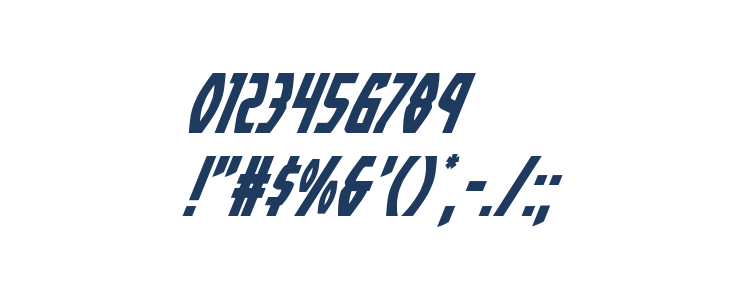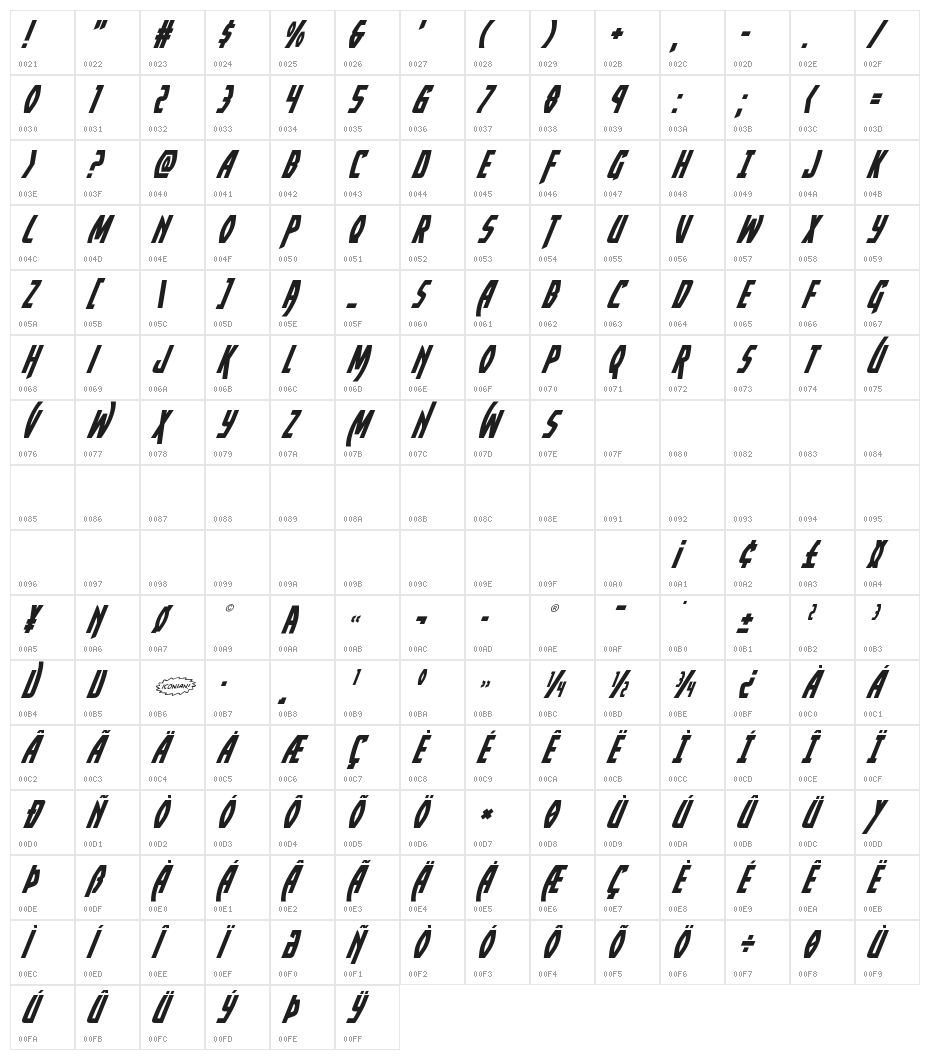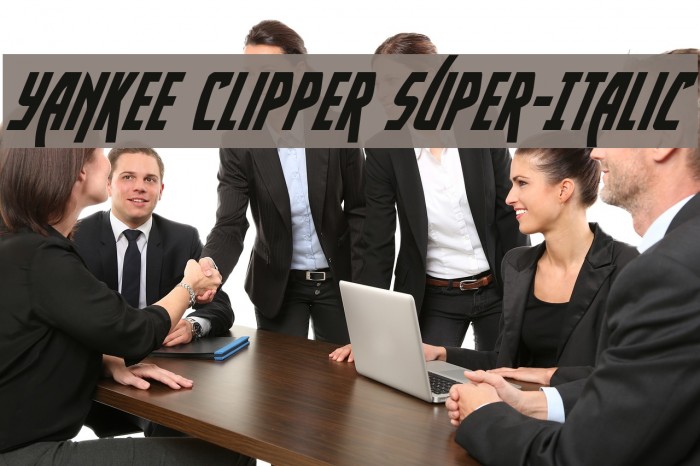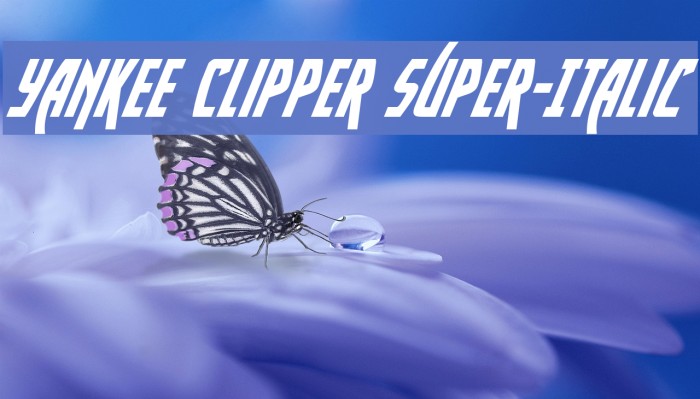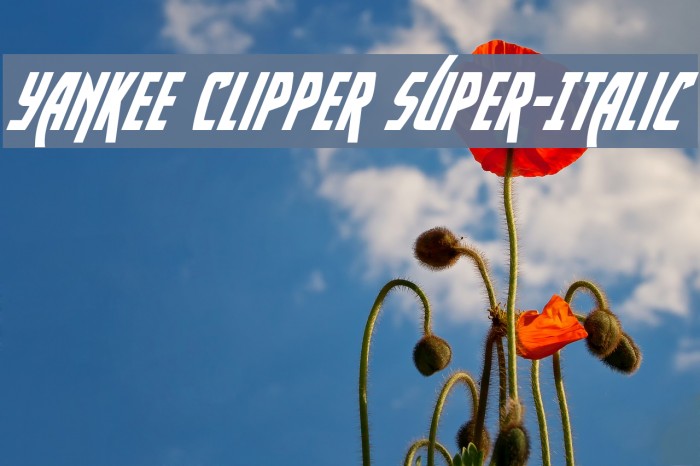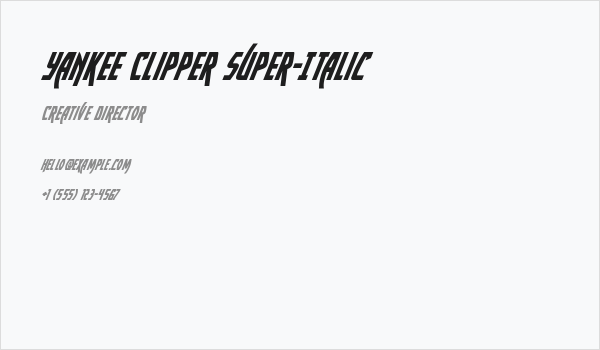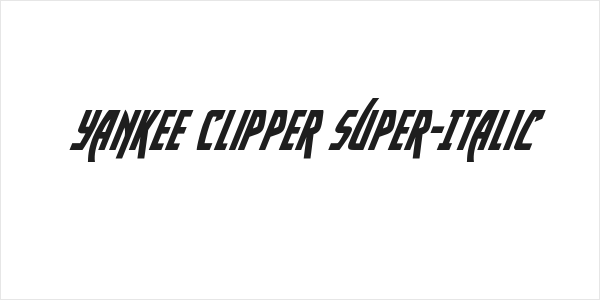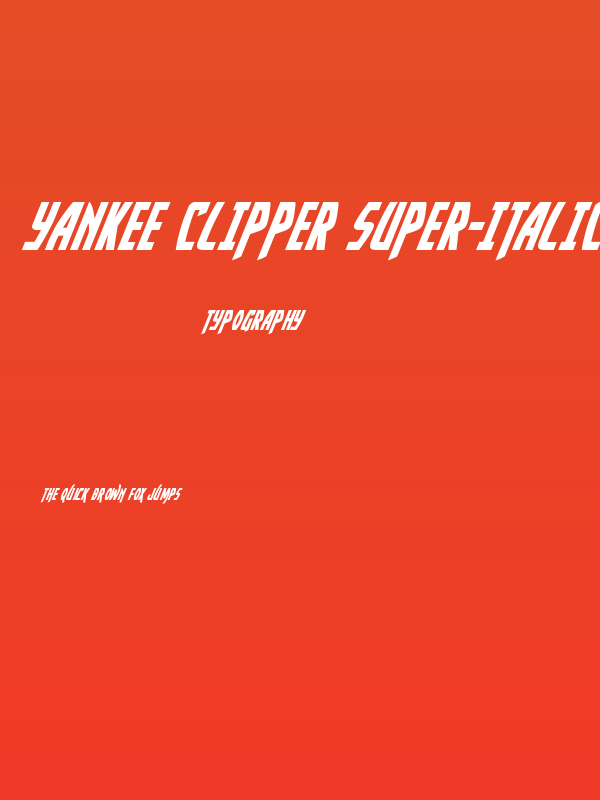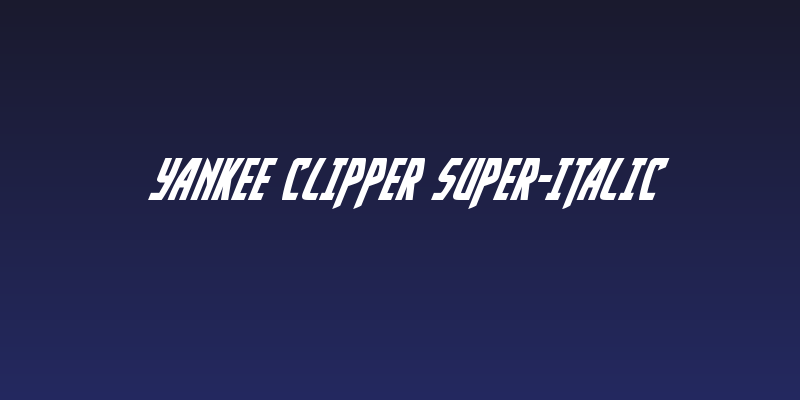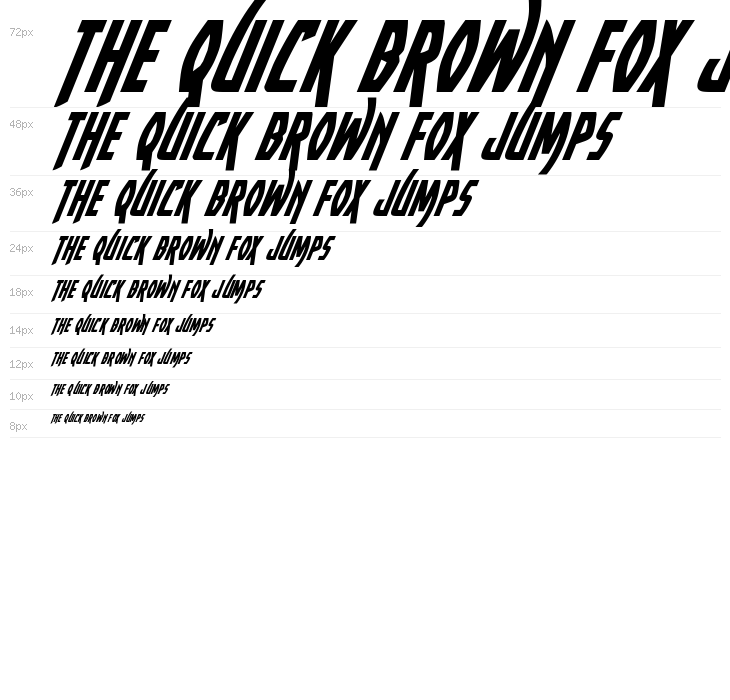
Yankee Clipper Super-Italic Font
Yankee Clipper Super-Italic Description
This font features a bold, italicized style with sharp, angular edges and a dynamic forward slant, giving it a sense of motion and energy. The uppercase and lowercase letters maintain a consistent slant, enhancing the font's cohesive look. The numbers and special characters follow the same design principles, ensuring uniformity across all glyphs. The font's aggressive and modern aesthetic makes it stand out, ideal for projects that require a strong visual impact.
| Proposed Projects | Ideal for sports branding, dynamic posters, and edgy graphic design projects. |